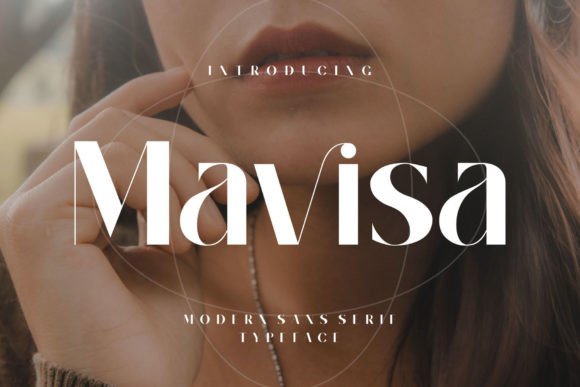
Unleash the Allure of Mavisa: A Timeless Sans Serif Font to Elevate Your Creative Vision
In the realm of typography, there exists an exquisite font that captivates hearts and imaginations—Mavisa. This feminine sans serif font is a testament to the power of elegance and sophistication. With its soft curves and graceful lines, Mavisa adds a touch of delicacy and refinement to any design project.
As a carefully crafted creation of Alfinart, Mavisa boasts a timeless appeal that transcends fleeting trends. Its versatile nature makes it an ideal choice for a wide range of applications, from branding ventures and editorial layouts to the enchanting realm of wedding invitations.
Adorn your designs with the allure of Mavisa and witness the transformation of ordinary text into captivating expressions of art. Its versatility knows no bounds, lending a touch of elegance to logos, website headers, and marketing materials. Experience the joy of creating stunning headlines, eye-catching social media posts, and captivating presentations that leave a lasting impression.
Mavisa's delicate strokes and flowing ligatures add a touch of femininity to any project. It's as if each letter is a brushstroke, adding a layer of artistry to your designs. With Mavisa, your words dance across the page, creating a visual symphony that captivates and enchants.
Take your designs to new heights with Mavisa, the font that embodies grace and sophistication. Let its beauty elevate your branding efforts, lend a touch of refinement to your editorial projects, and add a sprinkle of enchantment to your wedding invitations.
Mavisa is more than just a font; it's an experience, an expression of your unique creative vision. Embrace the allure of Mavisa and embark on a journey of typographic artistry.